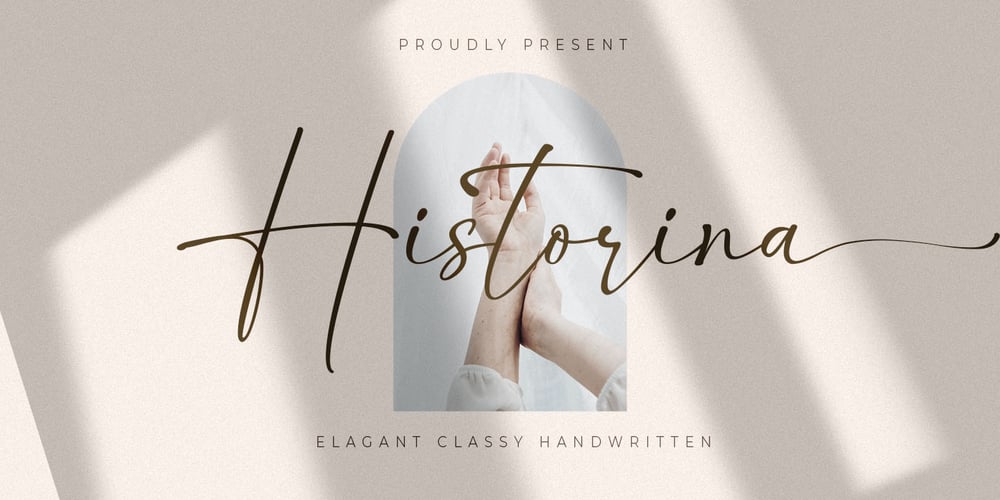
Historina
Historina font
Historina Font Family was designed by Muhammad Mujibulloh and published by MJB Letters. Historina contains 1 styles and family package options. Say hi to Historina elegant classy handwritten font which have a unique shape of each character and has ligature options. this font is perfect for wedding design, logo design, signature, packaging, posters, social media posts, business card design, quotes, branding and others.